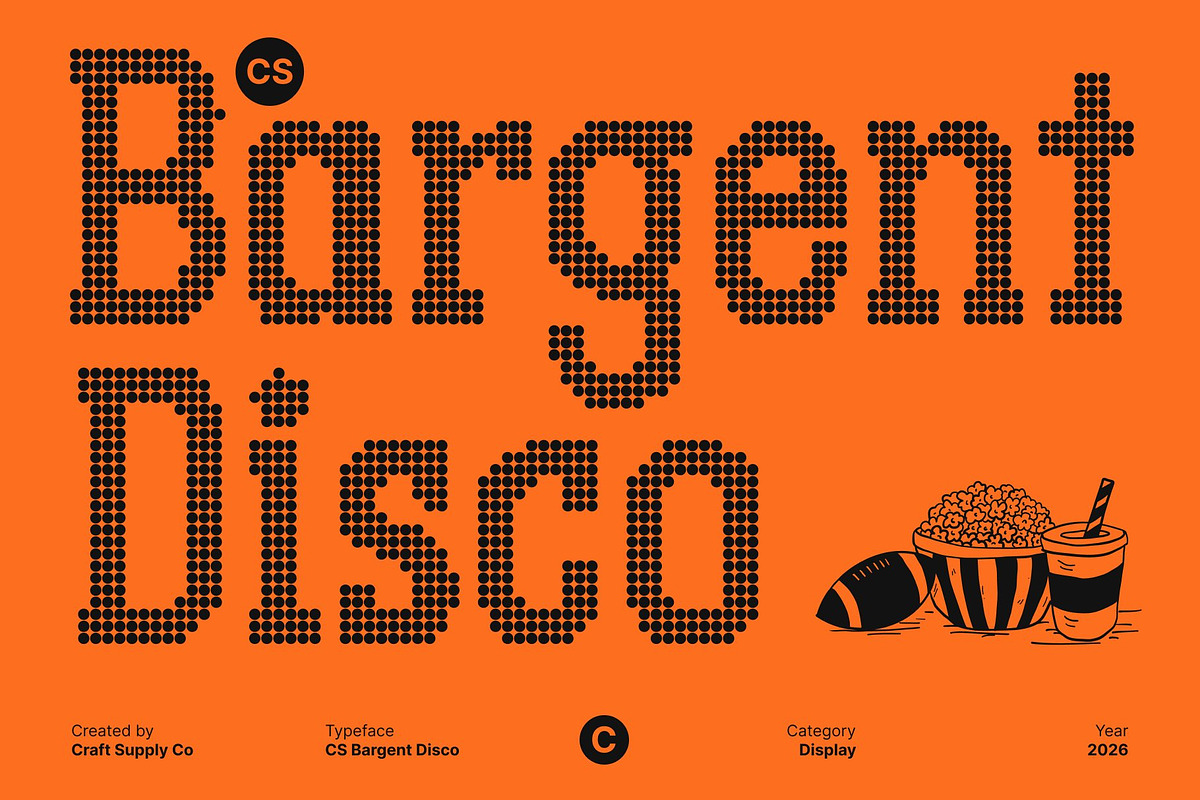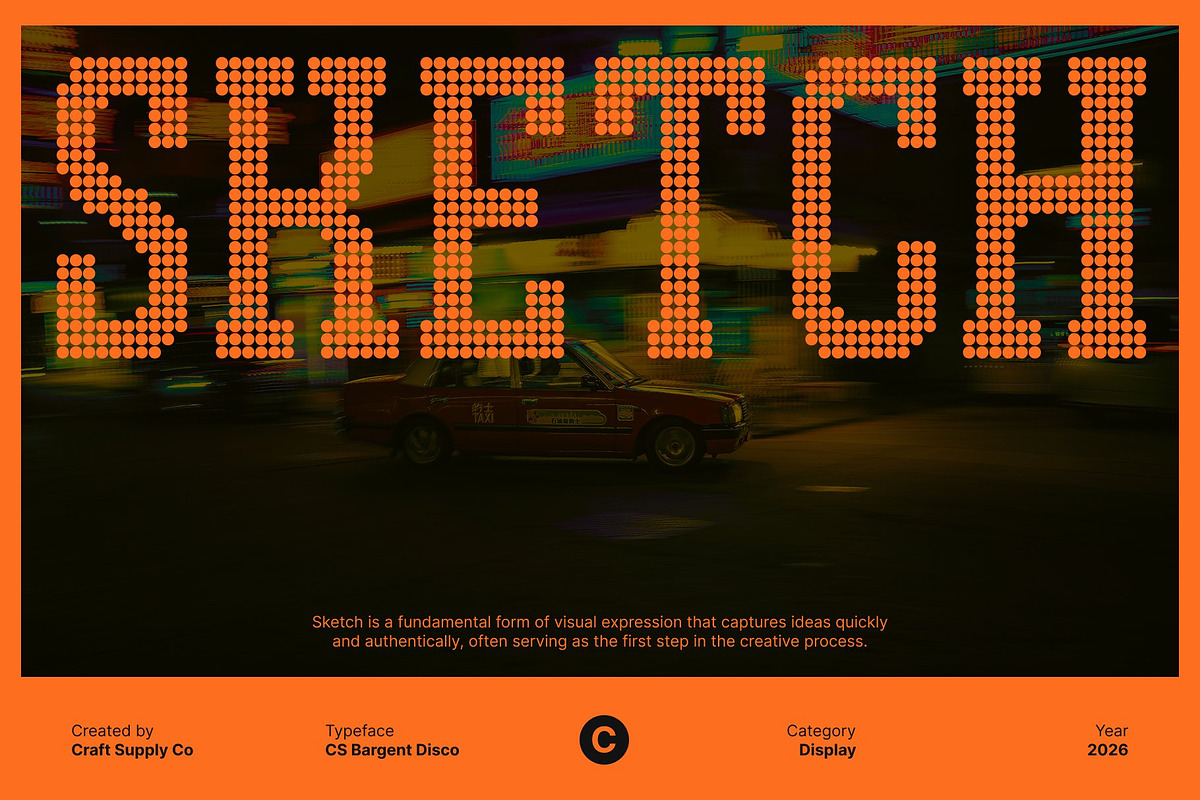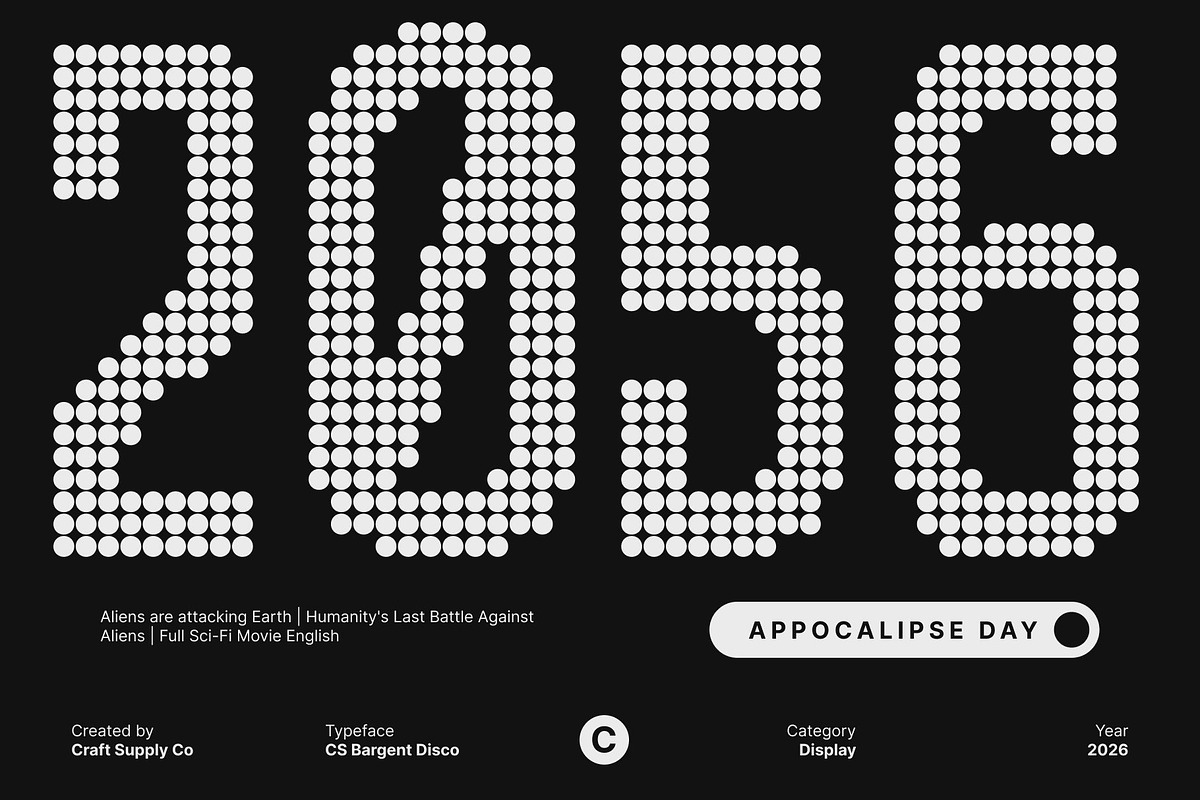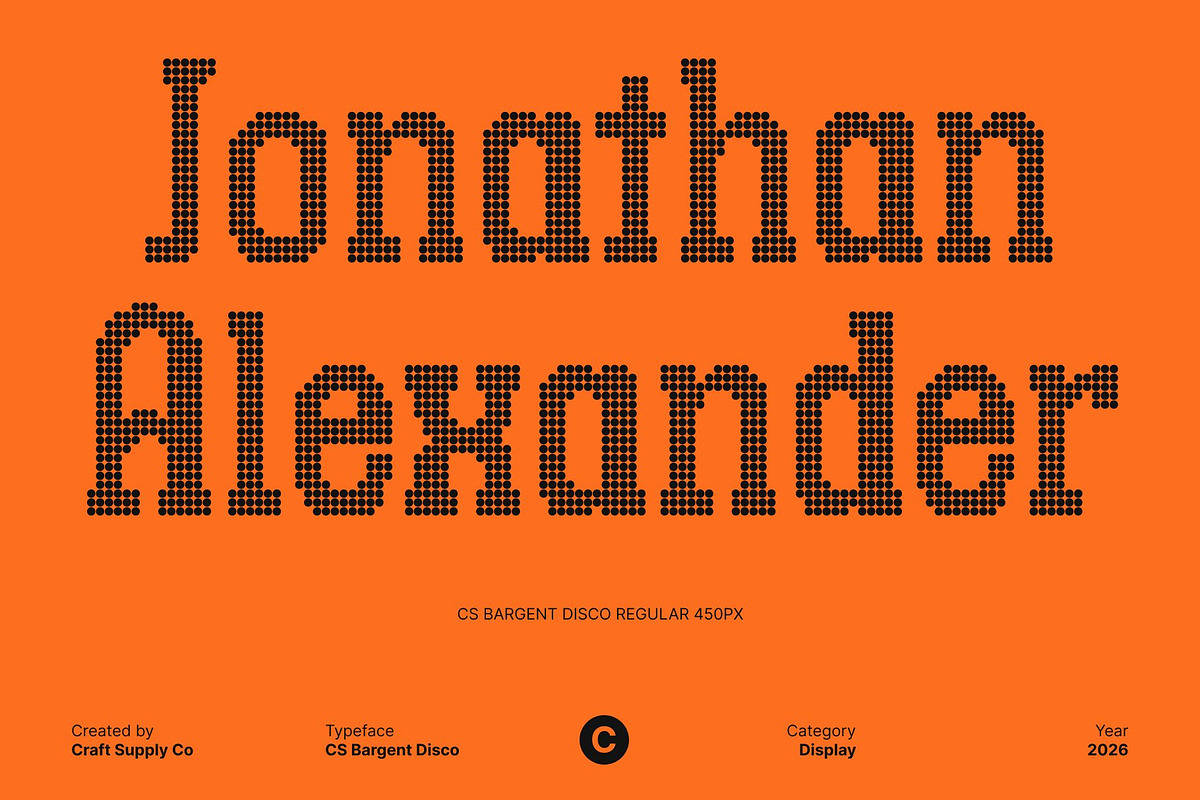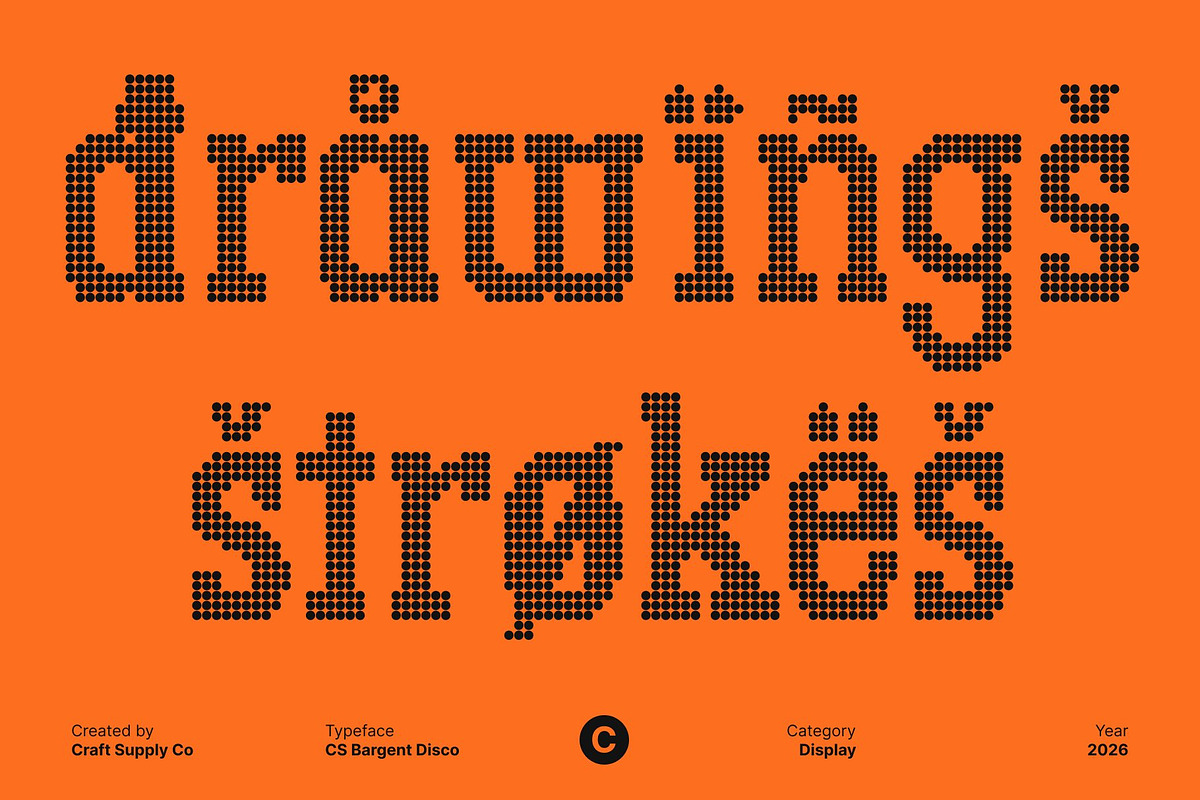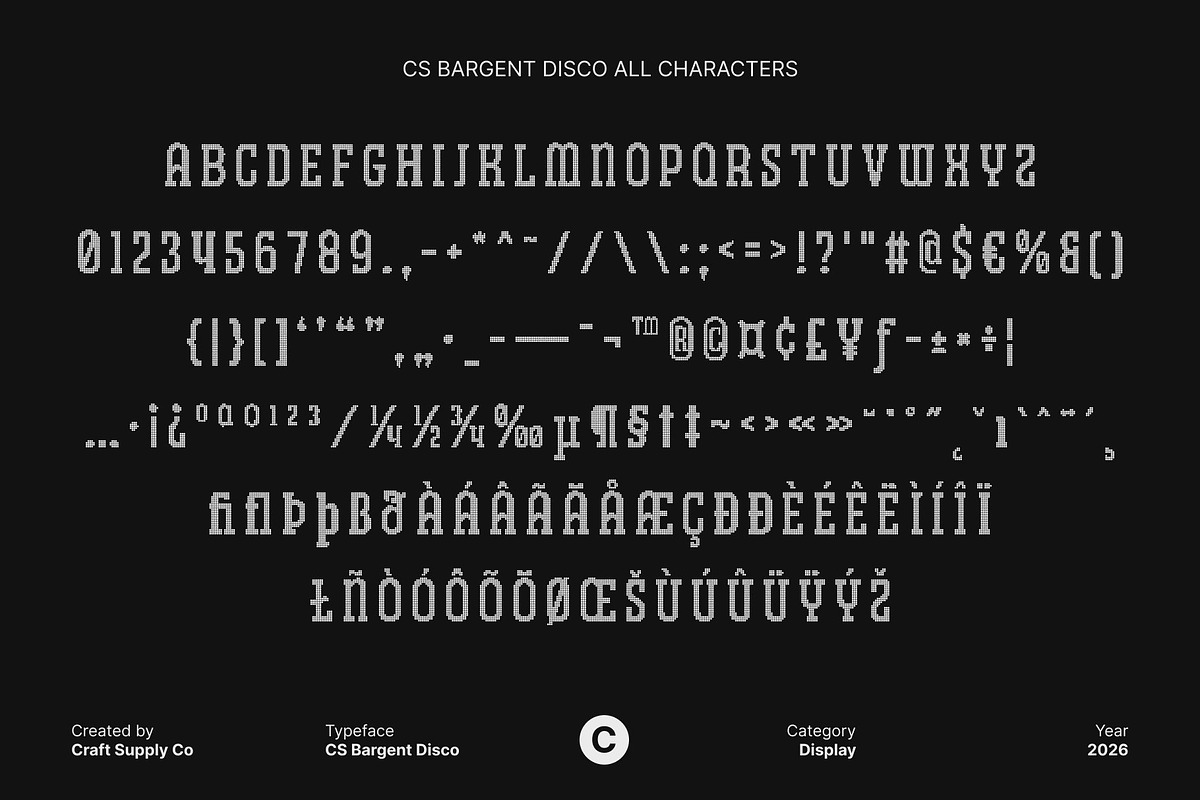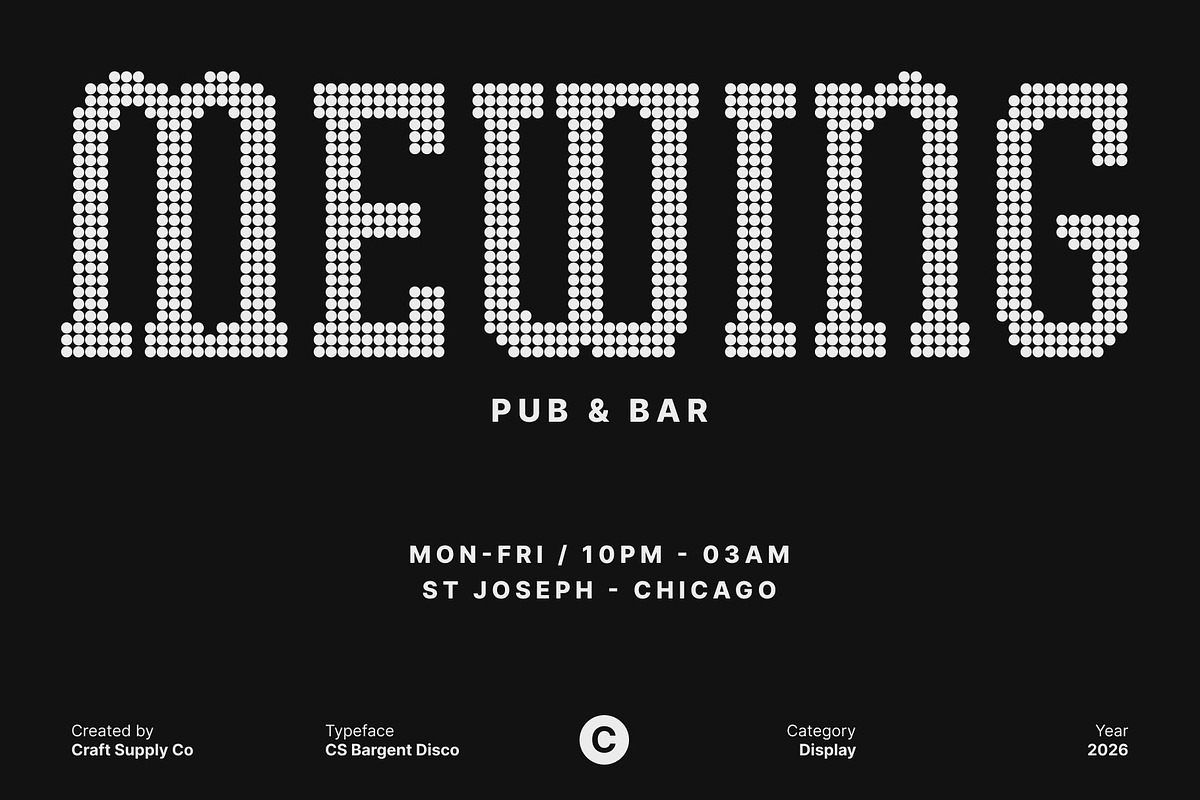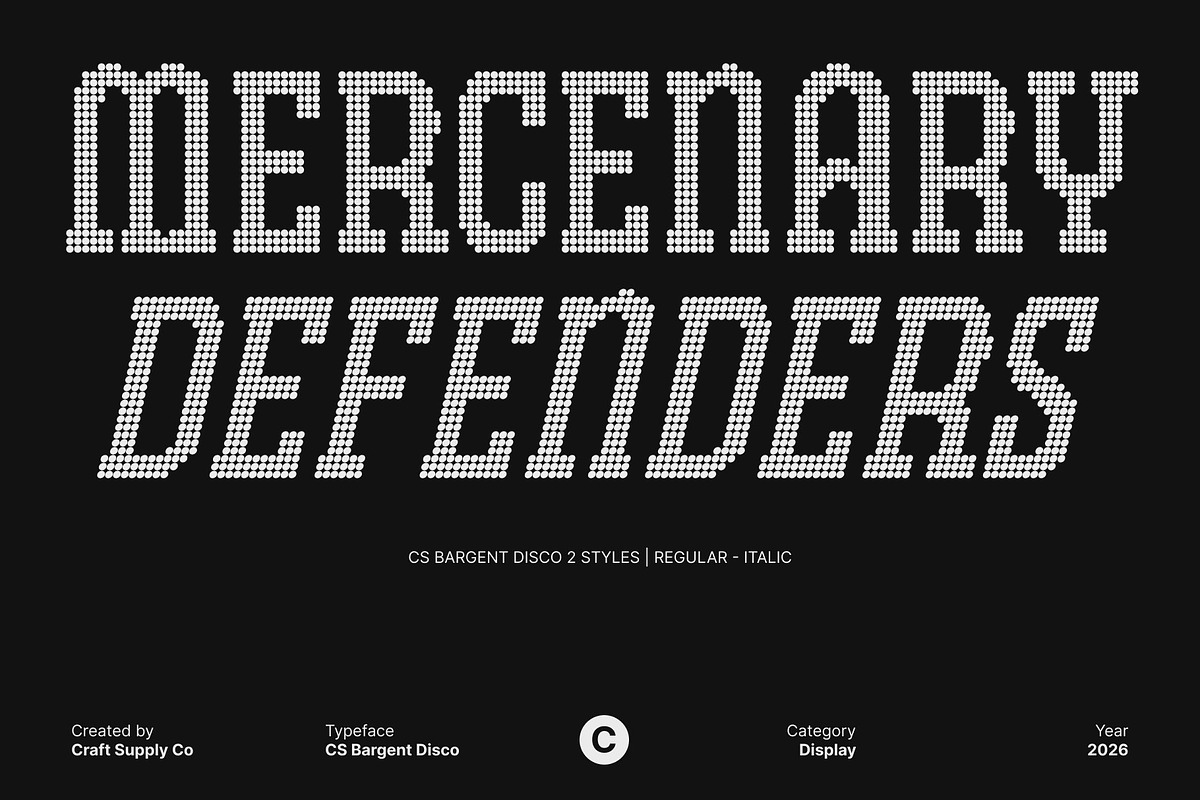
CS Bargent Disco
CS Bargent Disco – Modern Slab Serif Font: Bold, Sporty, and Disco-Driven
Soft Yet Assertive Slab Serif with Retro Flair This is a modern slab serif font that balances smooth, soft curves with strong, assertive forms. Rooted in sporty and campus-style typography, it gains a distinctive disco twist inspired by the vibrant aesthetics of the 70s to early 80s. This blend creates a bold yet playful character that radiates confidence, rhythm, and retro charm.
Designed for Headlines, Posters, and Disco Statements With its powerful structure and eye-catching presence, this font is perfect for headlines, posters, advertisements, and billboards. The sturdy slab serifs and confident proportions echo classic disco-era display typography, making it stand out in large formats while delivering a cheerful, energetic, and stylish.
Sporty Energy Meets Disco Glamour The sporty influence brings strength and momentum, while the disco-inspired design adds warmth, fun, and visual excitement. Its bold slab serif construction communicates stability and confidence, enhanced by lively curves that reflect the glamour and party atmosphere of the dance floor. This combination makes the font feel dynamic, expressive, and irresistibly upbeat.
Versatile for Retro-Modern Branding From logos and packaging to editorial layouts, event posters, and promotional materials, this font adapts effortlessly to a wide range of creative applications. Its fusion of modern slab serif structure, retro disco spirit, and approachable personality allows designers to create cheerful, bold, and memorable designs that celebrate energy, movement, and timeless fun.
CS Bargent Disco Regular
CS Bargent Disco Italic